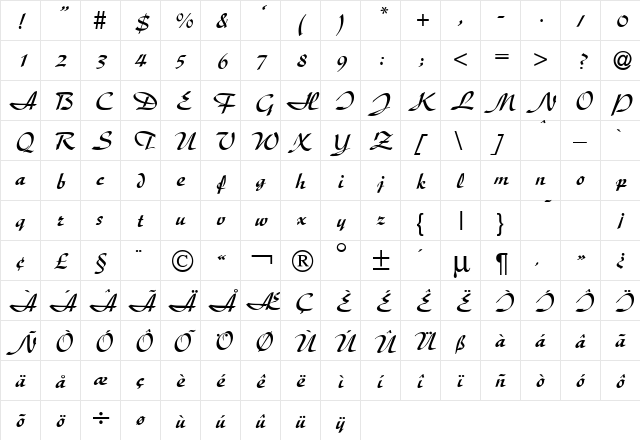
DiscHandDB Normal
Design Context for DiscHandDB Typeface
DiscHandDB flows with the natural rhythm of handwritten lettering, making it ideal for designs that call for warmth and personal expression.
Font Pairing: Combine DiscHandDB with a simple geometric sans for maximum contrast — the tension between flowing curves and clean structure is a classic typographic pairing.
Pro Tip: Pair DiscHandDB with a clean sans-serif for supporting text. The contrast between fluid script and geometric structure creates an elegant typographic hierarchy.